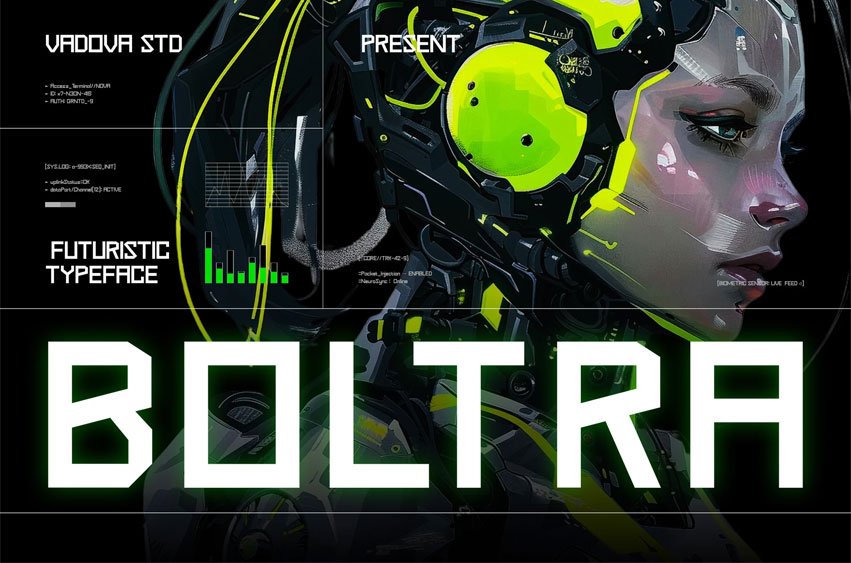
Boltra Font is a bold, futuristic display typeface built for high-tech, sci-fi, and cyber-themed designs. Featuring squared corners, precise alignment, and sharp angles, Boltra is ideal for projects that require a digital-forward, dystopian look. The font includes uppercase, lowercase, numerals, punctuation, and multilingual support.
Perfect for gaming UI, HUD displays, tech branding, sci-fi posters, cyberpunk packaging, and digital media, Boltra delivers cutting-edge aesthetics with industrial clarity and commanding presence.